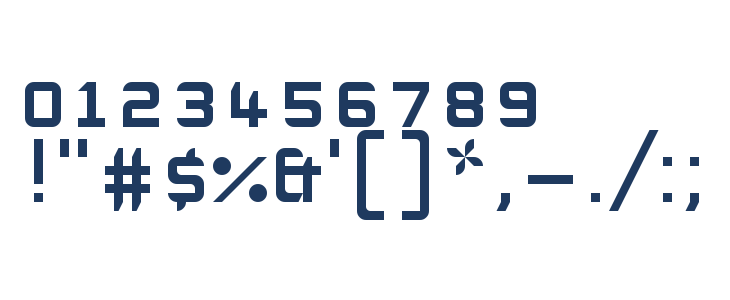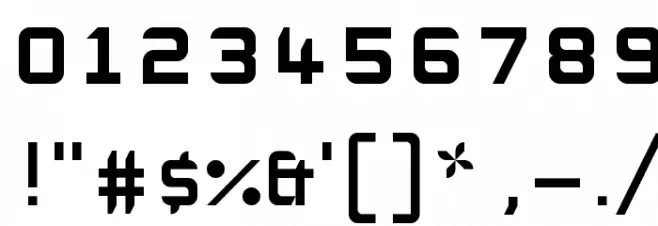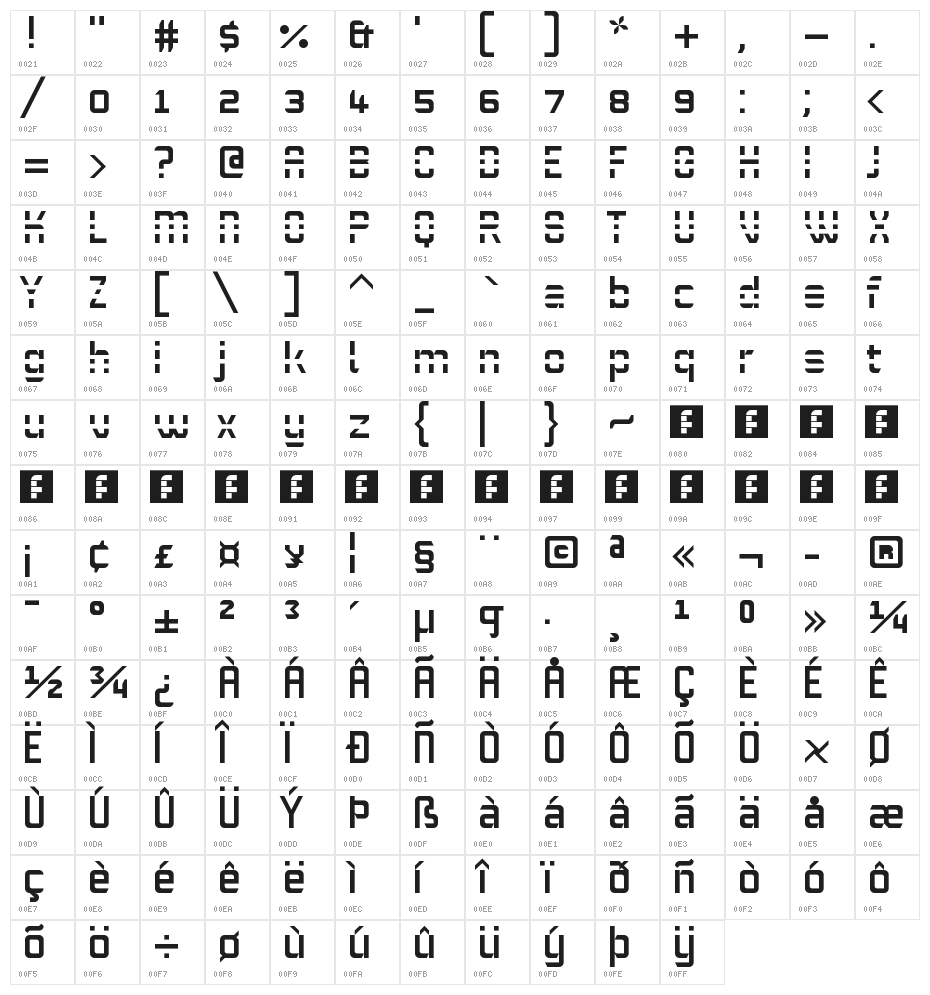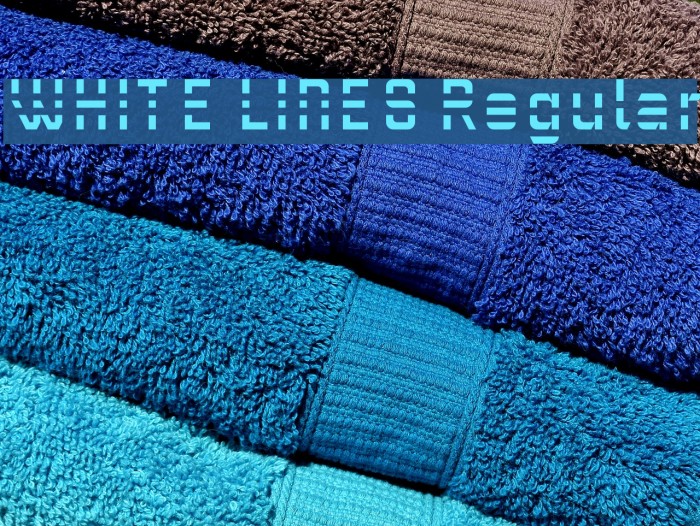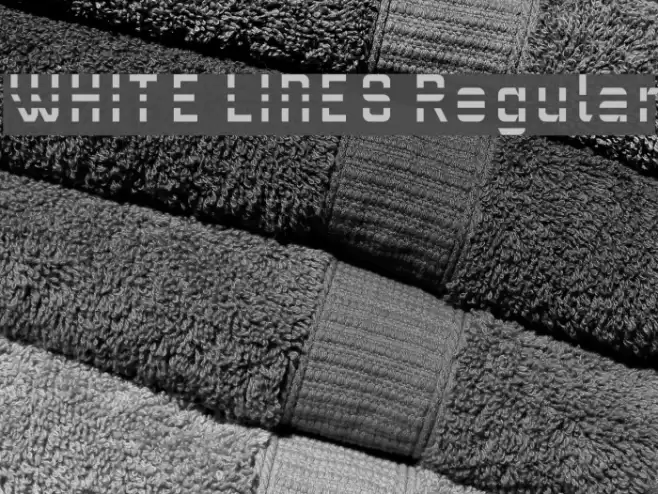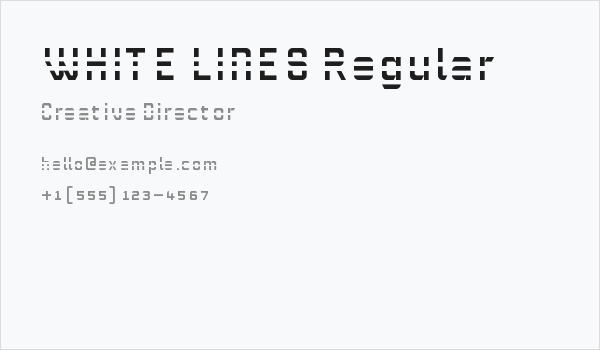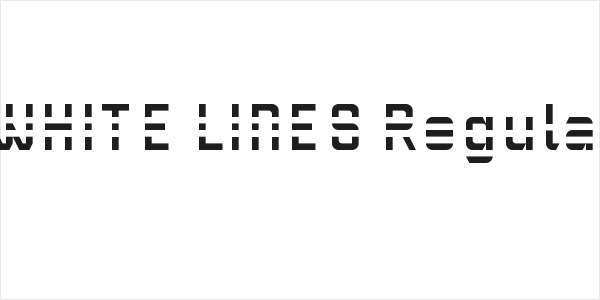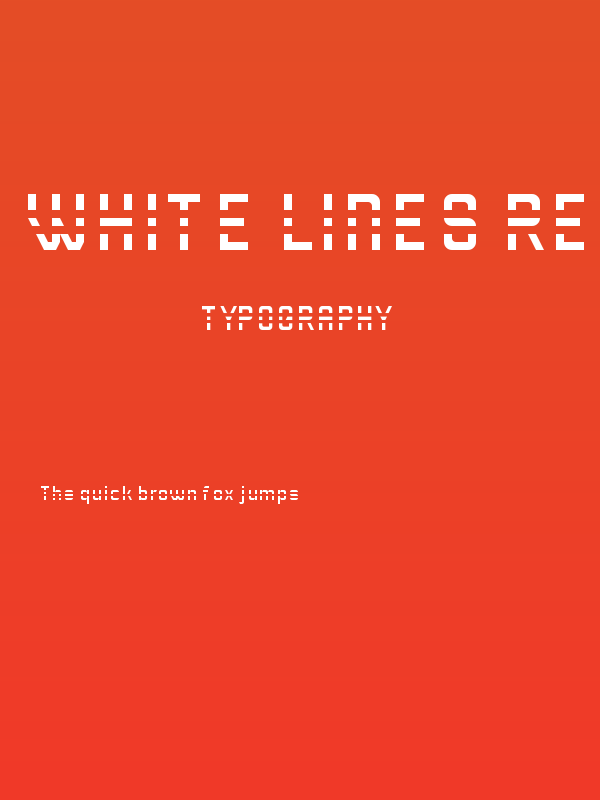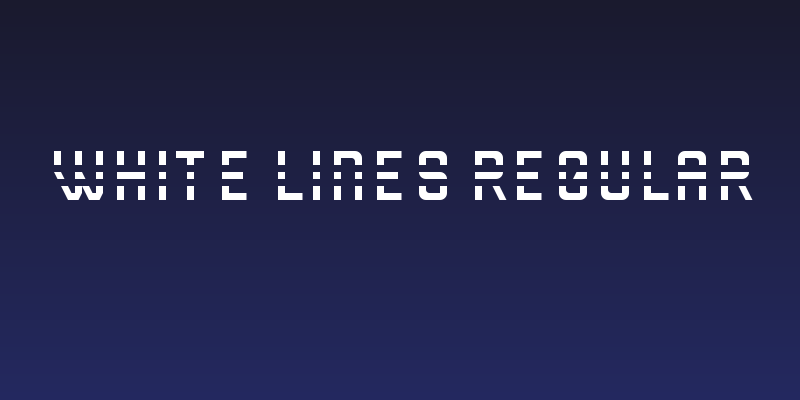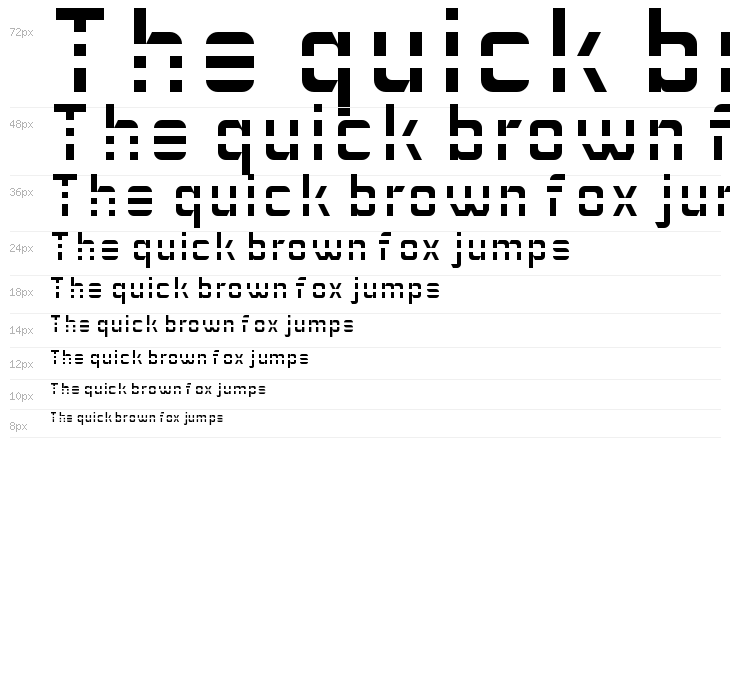
WHITE LINES Regular Font
WHITE LINES Regular Description
This font features a modern, geometric design with a unique stencil-like appearance. The characters are constructed with bold, straight lines and distinct cut-out sections, creating a futuristic and industrial feel. The uppercase and lowercase letters maintain a consistent style, with a uniform width and height that enhances readability. The numerals and special characters follow the same design principles, ensuring a cohesive look across all elements. This font's distinctive style makes it ideal for projects that require a bold and eye-catching typeface.